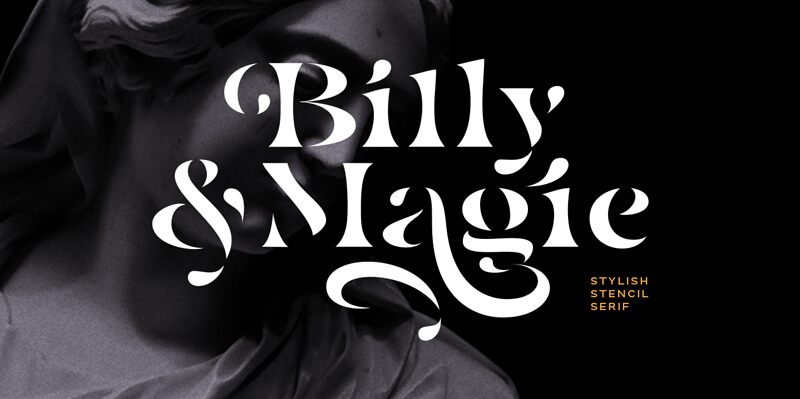
Billy Magie, designed by Saridezra, stands out as a bold display font with a striking stencil touch. Its robust weight and unique cutouts create an immediate visual impact, making it a perfect choice for projects that demand attention. The font's aesthetic balance between classic typography and modern design elements ensures versatility across various mediums.
The curves and sharp angles of Billy Magie blend to form a contemporary style that is both eye-catching and functional. This font is well-suited for creative endeavors such as branding, poster design, and editorial work where a distinctive typeface can elevate the overall look.
With its cohesive combination of strength and style, Billy Magie promises to be an unforgettable addition to any designer's toolkit for crafting compelling visual narratives.